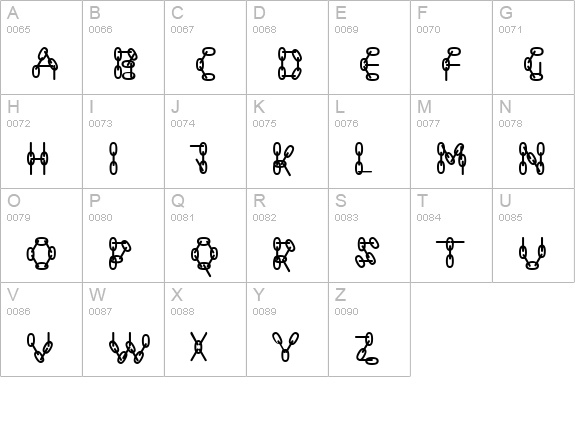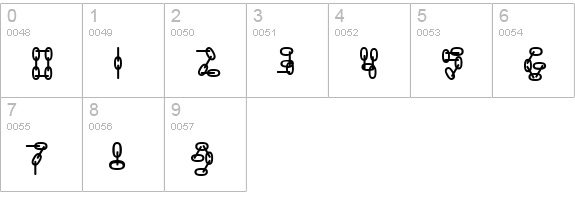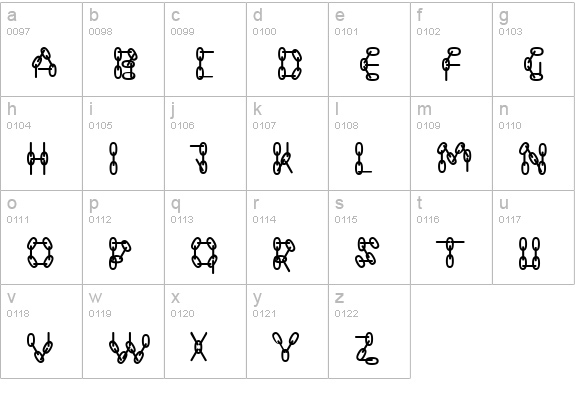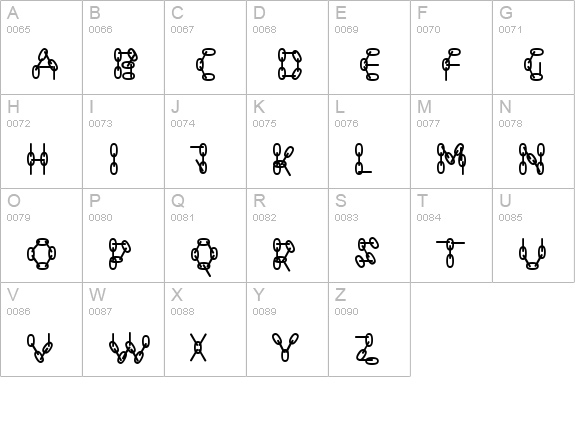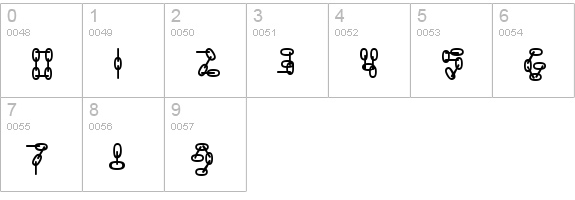
ChainLetterOne Font Details
ChainLetterOne font is a stylish and eye-catching typeface that is sure to make your designs stand out. With its unique lettering and intricate details, this font is perfect for adding a touch of elegance to any project. Whether you're designing a poster, invitation, or logo, ChainLetterOne font will bring a sophisticated look to your work. The best part? ChainLetterOne font is available for free download at FontsMarket.com. This means you can easily access this beautiful font and use it in your projects without any cost. Don't miss out on this opportunity to enhance your designs with the stunning ChainLetterOne font. Download it now and take your creative work to the next level.